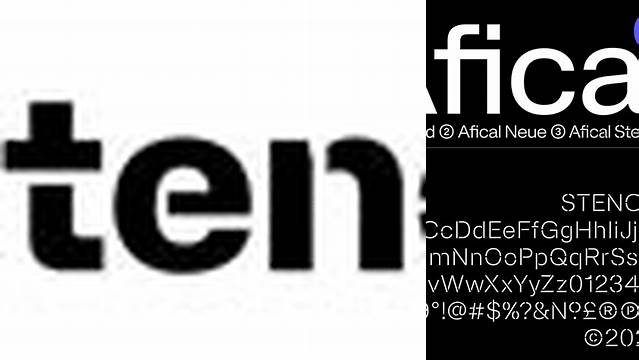
Are you looking to add a bold and distinctive touch to your design projects? The Afical Stencil Extra Bold font might just be what you need. In this article, we'll dive deep into everything you need to know about this unique font, including where to find it, how to use it, and why it's a great choice for various design applications.
What is Afical Stencil Extra Bold Font?
Afical Stencil Extra Bold is a typeface known for its robust and eye-catching design. As the name suggests, it's a stencil font, meaning it features breaks in its characters, giving it a unique, industrial, or military-inspired look. The “Extra Bold” designation indicates a heavier weight, making it perfect for headlines, posters, and other applications where you need a strong visual impact. This font is designed to grab attention and make a statement, which is why it's favored by designers working on projects that need to stand out.
The font's design incorporates clean lines and a consistent stencil effect, ensuring readability while maintaining its distinctive appearance. Its bold weight adds to its presence, making it highly visible even from a distance. Whether you’re designing a logo, creating promotional materials, or working on a branding project, Afical Stencil Extra Bold can bring a unique and powerful aesthetic to your work. Its versatility makes it suitable for a range of themes, from urban and industrial to modern and minimalist.
One of the key advantages of using Afical Stencil Extra Bold is its ability to convey strength and stability. The bold letters command attention, while the stencil effect adds a layer of visual interest and uniqueness. This combination makes it an excellent choice for projects that require a sense of authority and creativity. Additionally, the font's clear and well-defined characters ensure that it remains legible across different sizes and media, making it a practical choice for both print and digital applications. If you aim to create designs that are both impactful and memorable, Afical Stencil Extra Bold is definitely a font to consider.
How to Use Afical Stencil Extra Bold in Your Designs
Best Use Cases
- Headlines and Titles: Afical Stencil Extra Bold is perfect for headlines and titles where you need to grab attention. Its strong visual presence ensures that your message is seen and remembered. Use it for website headers, poster titles, and book covers.
- Logos and Branding: The unique stencil design can add character to logos and branding materials. It conveys a sense of strength and industrial flair, making it ideal for brands that want to project a bold image. Consider using it for company logos, business cards, and marketing collateral.
In conclusion, Afical Stencil Extra Bold is a font that combines distinctiveness, strength, and versatility, making it a great choice for designers looking to create impactful and memorable designs. Its unique stencil design and bold weight ensure that your message is seen and remembered, while its adaptability allows it to be used in a wide range of applications. If you're looking for a font that can help you make a statement and enhance your creativity, Afical Stencil Extra Bold is definitely worth considering.